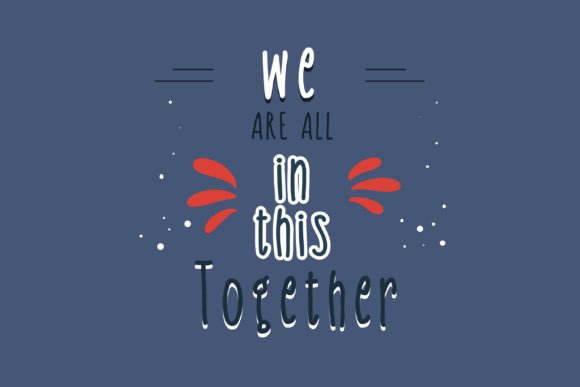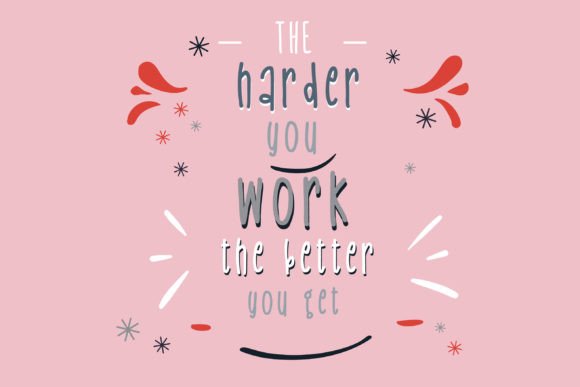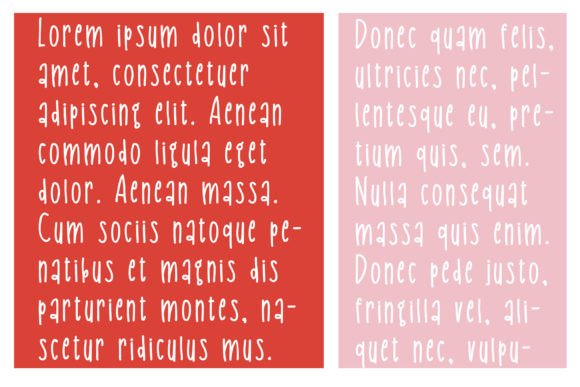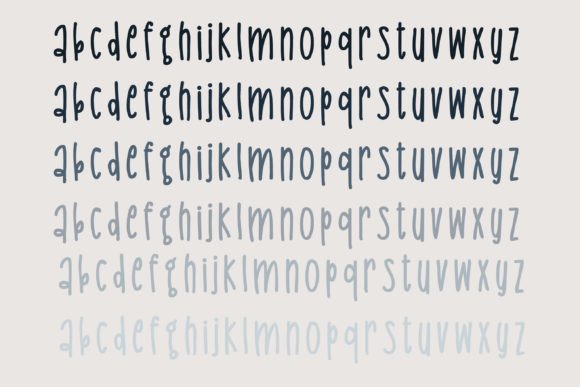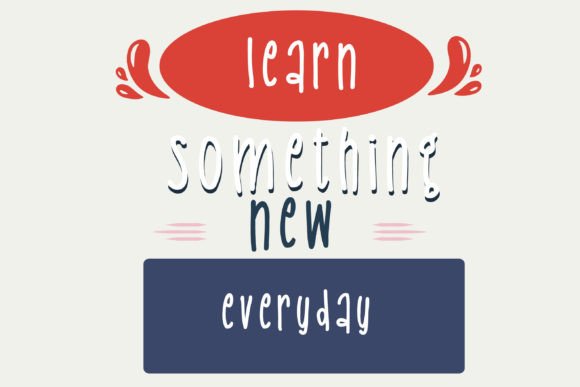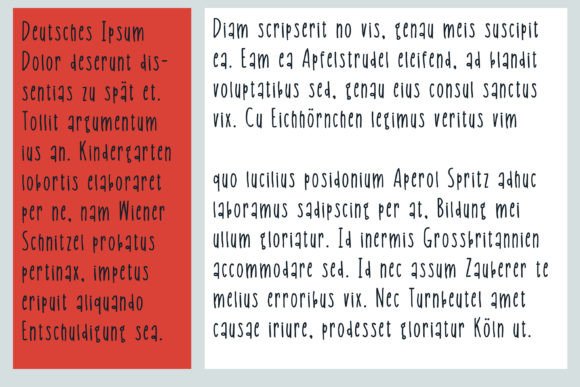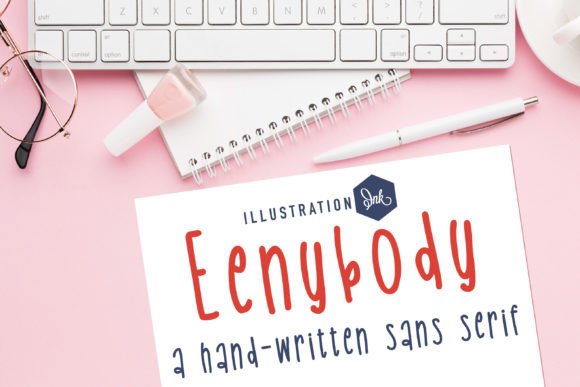
Eenybody Font: A Fun and Whimsical Hand-Crafted Sans Serif
Are you tired of using the same old fonts for your designs? Look no further than the Eenybody Font, a hand-crafted sans serif that’s sure to add a touch of whimsy and youthfulness to your projects. With its unique toggle throughout, this font is perfect for designers and crafters looking to add some personality to their work.
A hand-crafted font is a font that is designed to look like it was written by hand. It’s often used for invitations, greeting cards, and other items where a personal touch is desired. Handwritten fonts can be either formal or informal, and they can be used for a variety of purposes. They add a level of warmth and personality to a design that can be hard to achieve with more traditional fonts.
The Characteristics of Eenybody Font
Eenybody Font is a sans serif font, which means it doesn’t have the small lines or flourishes at the ends of the letters. This gives it a clean and modern look that’s perfect for designs where you want to convey a sense of simplicity and elegance. However, what sets Eenybody Font apart is its hand-crafted feel. Each letter has been carefully designed to look like it was written by hand, with a unique toggle throughout that gives it a playful and whimsical feel.
Uses for Eenybody Font
Eenybody Font is a versatile font that can be used for a wide range of projects. Here are a few ideas to get you started:
- Invitations: Whether you’re planning a wedding, birthday party, or other special event, Eenybody Font is a great choice for your invitations. Its hand-crafted feel adds a personal touch that will make your guests feel special.
- Greeting Cards: Eenybody Font is also perfect for greeting cards, whether you’re sending a birthday greeting, get well wishes, or just a friendly hello. Its playful feel will add a smile to the recipient’s face.
- Signs and Posters: If you’re looking to create a sign or poster for a business or event, Eenybody Font is a great choice. Its clean and modern look will grab attention, while its hand-crafted feel will add a touch of personality.
- Digital Designs: Eenybody Font can also be used for digital designs, such as social media graphics, blog posts, and more. Its unique toggle throughout will add a touch of whimsy to your designs and make them stand out.
The Benefits of Using Eenybody Font
There are many benefits to using Eenybody Font in your designs. Here are a few:
- Unique Look: Eenybody Font has a unique look that’s sure to set your designs apart. Its hand-crafted feel and toggle throughout make it a one-of-a-kind font that’s sure to grab attention.
- Versatility: Eenybody Font is a versatile font that can be used for a wide range of projects. Whether you’re creating invitations, signs, or digital designs, this font is a great choice.
- Easy to Read: Despite its hand-crafted feel, Eenybody Font is easy to read, even at small sizes. This makes it perfect for designs where you need to convey a lot of information.
Eenybody Font is a fun and whimsical hand-crafted sans serif that’s perfect for designers and crafters looking to add some personality to their work. With its unique toggle throughout and hand-crafted feel, this font is sure to grab attention and add a touch of warmth to your designs. Whether you’re creating invitations, signs, or digital designs, Eenybody Font is a great choice. And with a lite version available, it’s accessible to designers and crafters of all budgets.